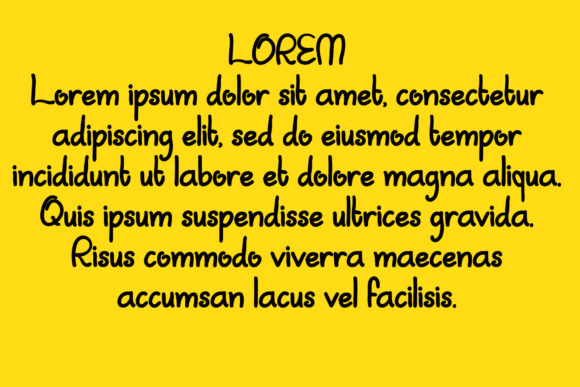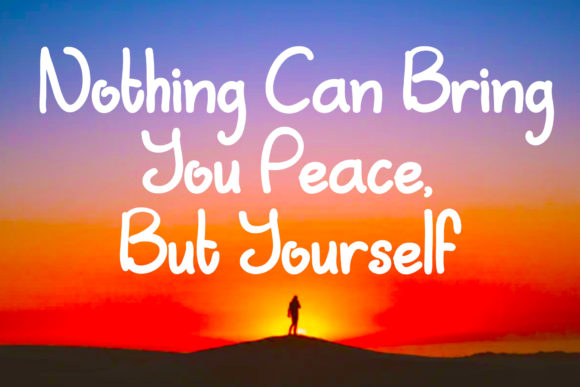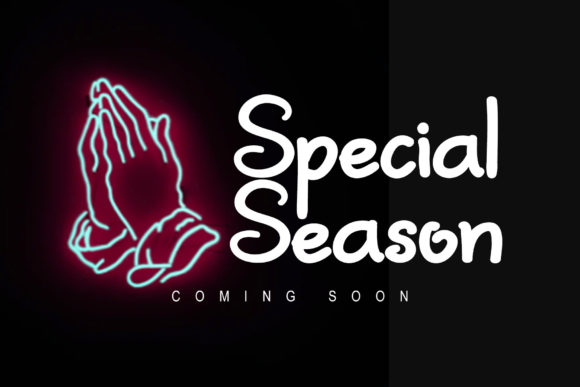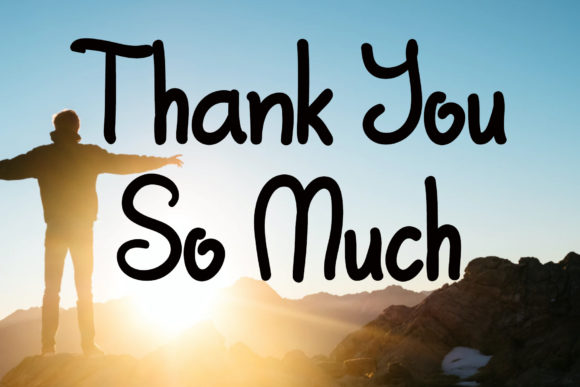
Introduction to Beautiful Sunrise Font
As a designer, there’s nothing quite like the feeling of inspiration striking in the morning, as the sun rises over a new day. It’s a moment that sparks creativity and fills you with excitement for the projects ahead. For many designers, this feeling is what drives them to create something truly special, and with the right design resource, the possibilities are endless.
That’s where the Beautiful Sunrise Font comes in – a stunning display font that’s perfect for adding a touch of elegance and whimsy to your next creative project. Whether you’re working on a wedding invitation, a quote, or a logo, this high-quality font is sure to bring your design to life. And the best part? It’s available for free download, making it a valuable resource for designers of all levels.
With its transparent background and simple, yet sophisticated style, the Beautiful Sunrise Font is a must-have for any designer looking to add a little extra magic to their designs. So why settle for an ordinary font when you can have an extraordinary one? Download the Beautiful Sunrise Font today and start creating something truly special!
Key Features of Beautiful Sunrise Font
- Unique and elegant design, perfect for creative projects requiring a touch of warmth and serenity.
- Perfect for use in various creative projects, such as logo design, branding, and graphic design, requiring a beautiful and elegant font.
- Easy to customize and use, making it a valuable addition to any design library.
Honest Review: Beautiful Sunrise Font
As a designer, I’m always on the lookout for unique and high-quality design resources to enhance my creative projects. Recently, I stumbled upon the Beautiful Sunrise Font, which caught my eye with its beautiful and vibrant design.
What works well: ✨ The Beautiful Sunrise Font is a stunning addition to any design project. Its high-quality design and transparent background make it perfect for use on images, graphics, and even digital displays. The font is also highly customizable, allowing users to adjust the color, size, and style to suit their needs.
What doesn’t work so well: ⚠️ One of the limitations of the Beautiful Sunrise Font is that it’s not suitable for use as a primary font. Its design is more suited for use as an accent or decorative element, rather than the main font for large blocks of text. Additionally, the font may not be compatible with all operating systems or software.
Overall, I’m impressed with the Beautiful Sunrise Font, and I would recommend it to designers looking for a unique and eye-catching design resource. Whether you’re working on a free download or a paid project, this font is sure to add a touch of beauty and elegance to your design.
- Perfect for use on images, graphics, and digital displays
- Highly customizable with color, size, and style options
- Unique and eye-catching design
- May not be suitable for use as a primary font
For the best results, use the Beautiful Sunrise Font in conjunction with other high-quality design elements, such as images and graphics. Experiment with different font sizes, colors, and styles to create a visually appealing design. Additionally, consider using the font’s transparent background feature to create a seamless design experience.
The Beautiful Sunrise Font is ideal for a variety of creative projects, including blog posts, social media graphics, and marketing materials. Its high-quality design and transparent background make it a versatile choice for designers of all skill levels.